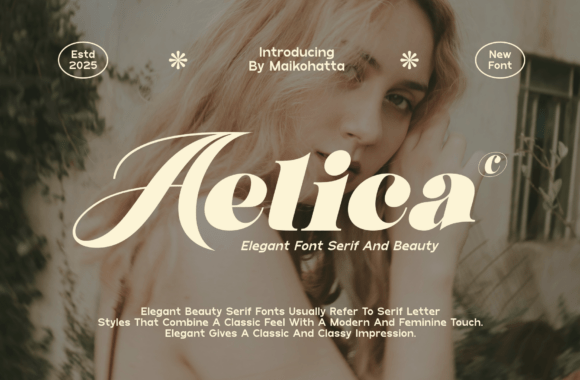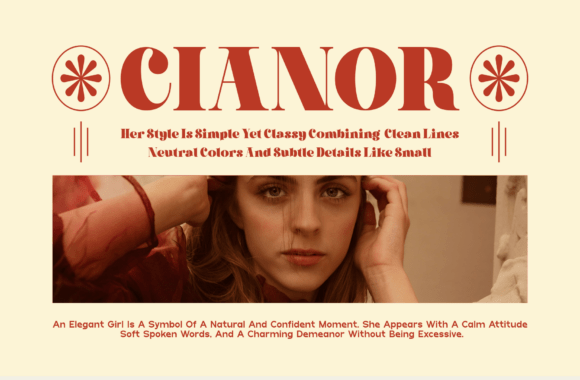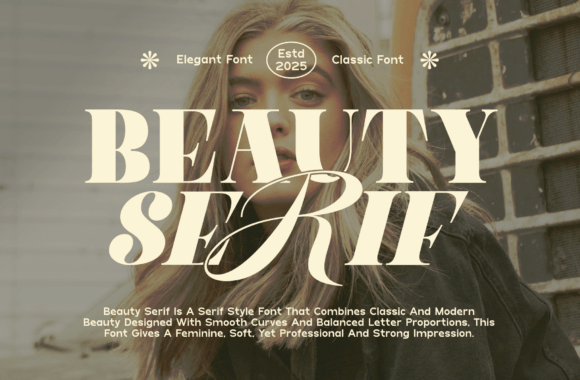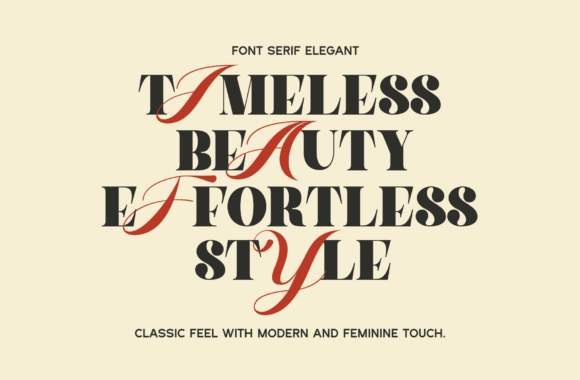
Aelica Font
About the Aelica Font
Meet Aelica Font, a stunning font that brings a touch of elegance and professionalism to any design. Introducing our new product **Aelica** – Elegant Serif
This font is a type of letter that has special characteristics that create the impression of luxury, elegance, and firmness. This font involves a series of design elements such as balanced thin and thick lines, gentle curves, and elegant and clean serifs. The sharp corners and fine details of each character create a highly aesthetic impression and exude an air of elegance.
Aelica’s elegant serif design is ideally suited for headlines, logos, and short text blocks in branding materials, invitations, and high-end packaging. Its refined forms lend themselves well to projects requiring a sophisticated and authoritative feel. However, its delicate details make it less suitable for body text or UI elements where readability at smaller sizes is paramount.
Pairing Aelica with a clean sans-serif like Open Sans for body copy creates a balanced and professional look. For a more playful contrast, consider pairing it with a rounded geometric sans-serif. A handwritten script font could add a touch of personality to projects where a slightly more informal yet still upscale feel is desired.
Aelica projects an air of sophisticated elegance and understated confidence. Its overall personality is refined and authoritative, making it a strong choice for brands aiming to convey luxury, quality, and trustworthiness.
Aelica Font Usage Examples
Aelica Font Example